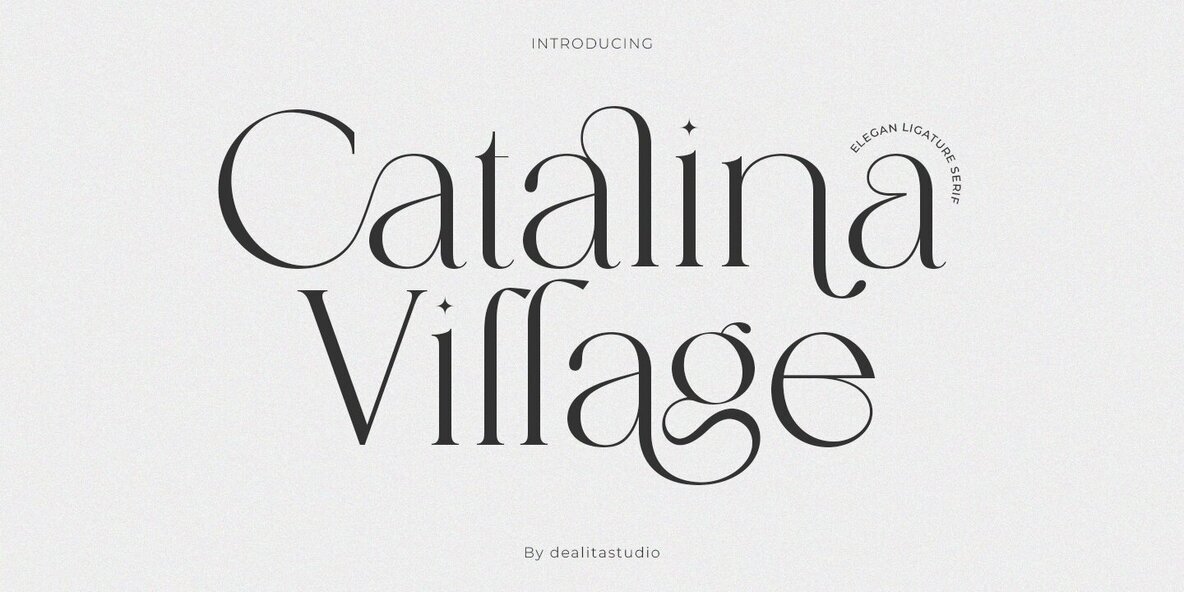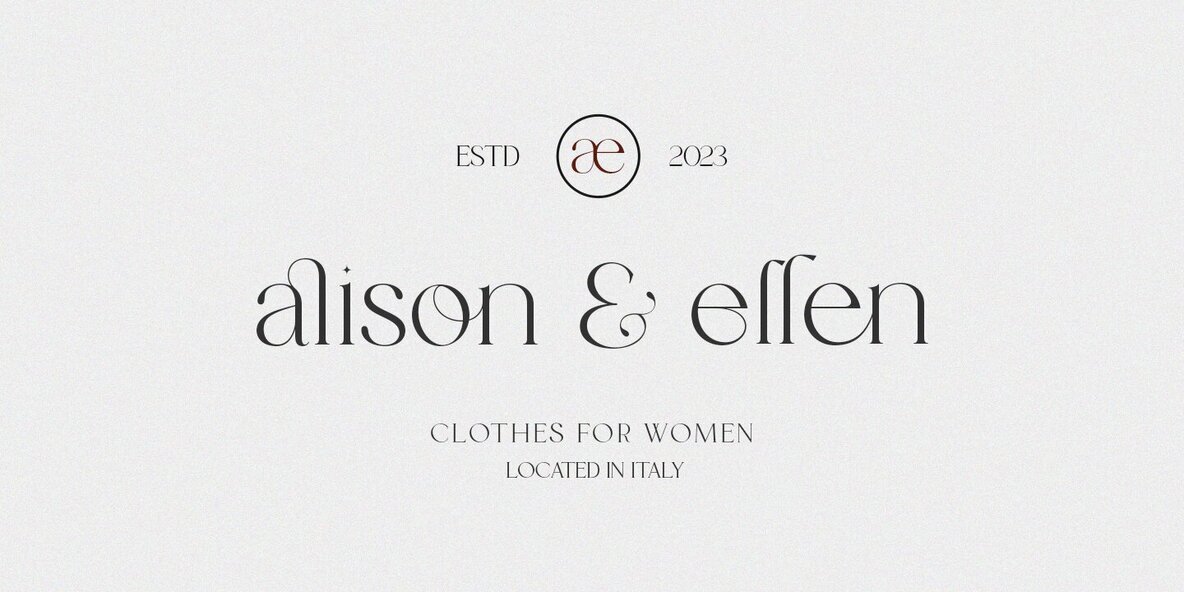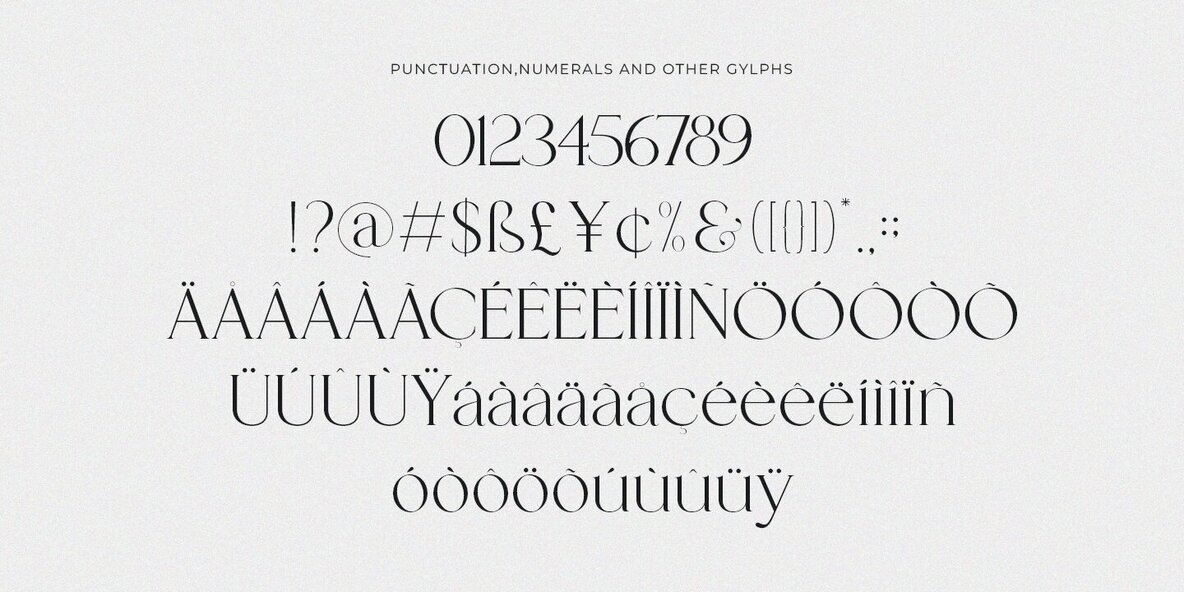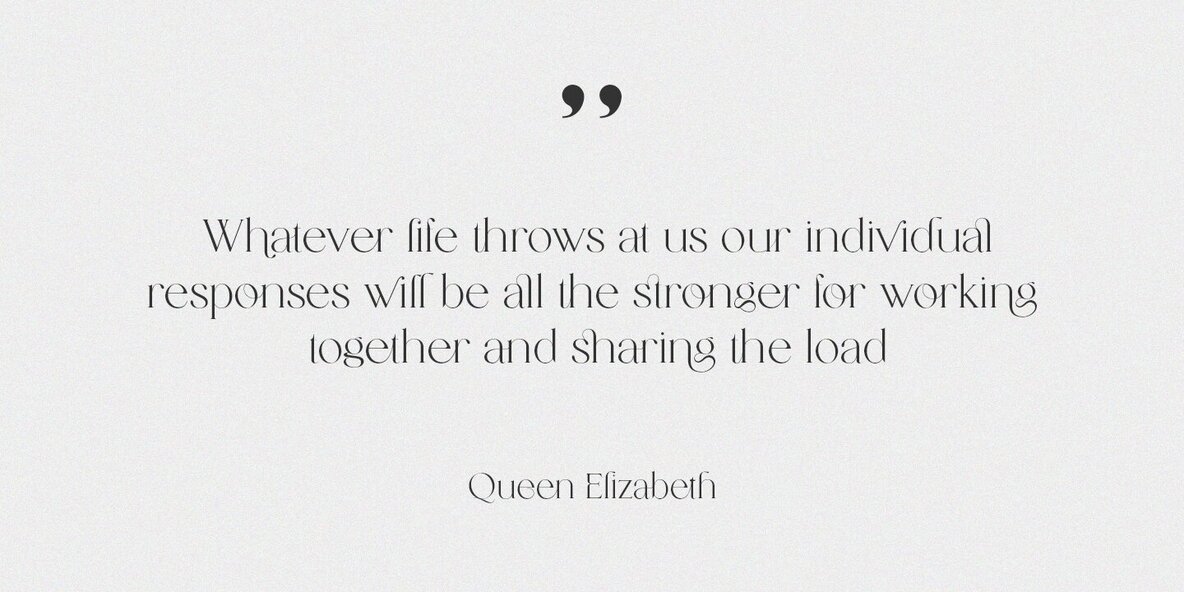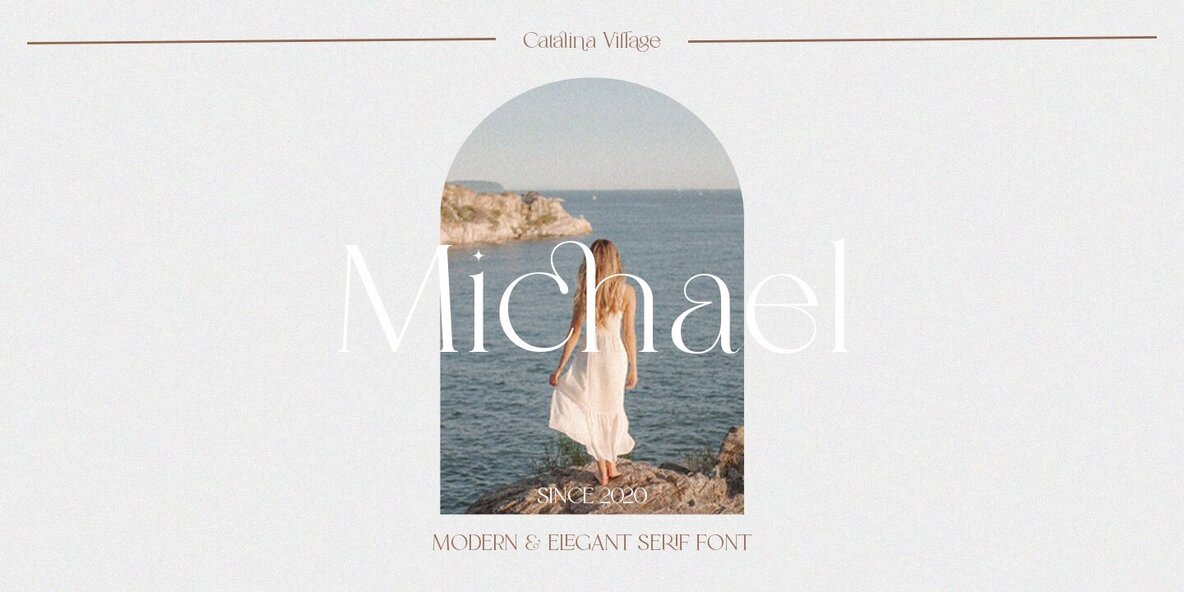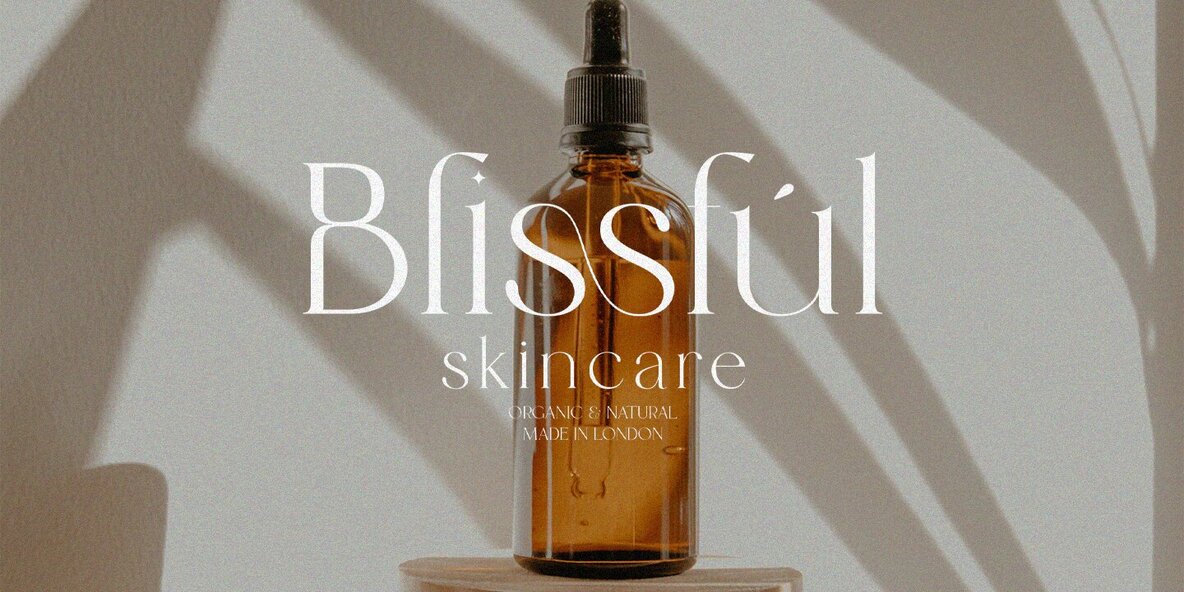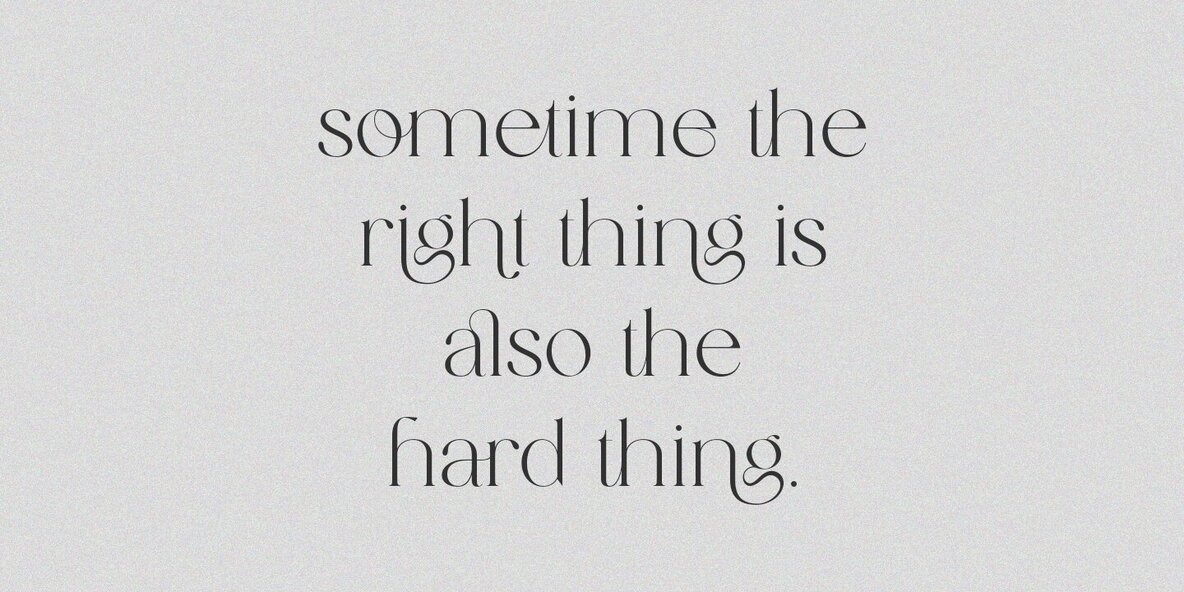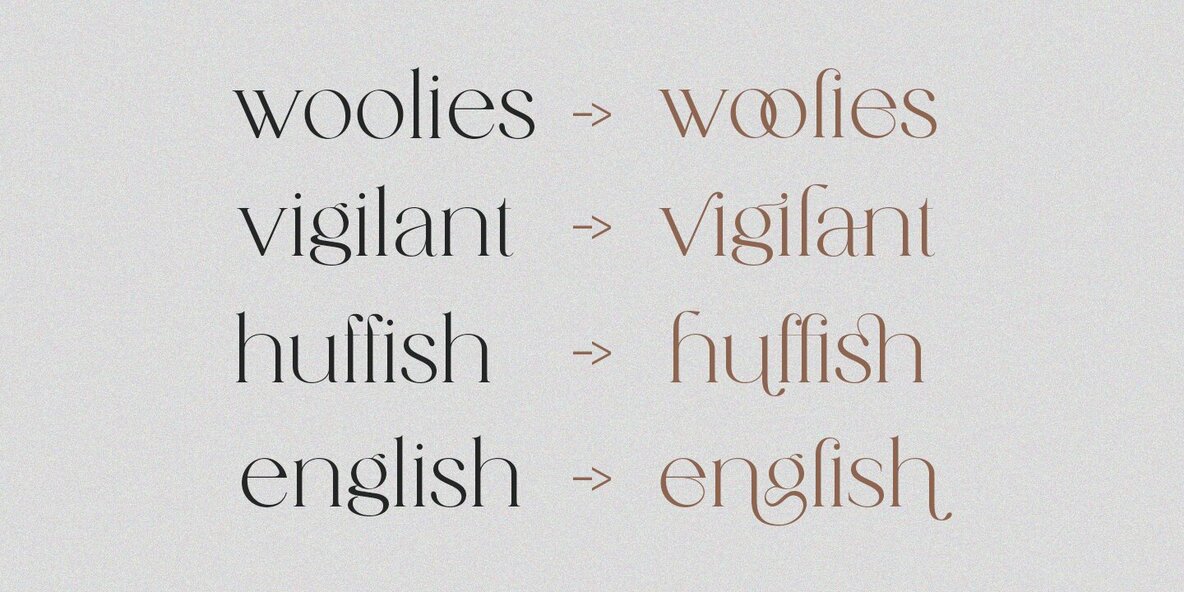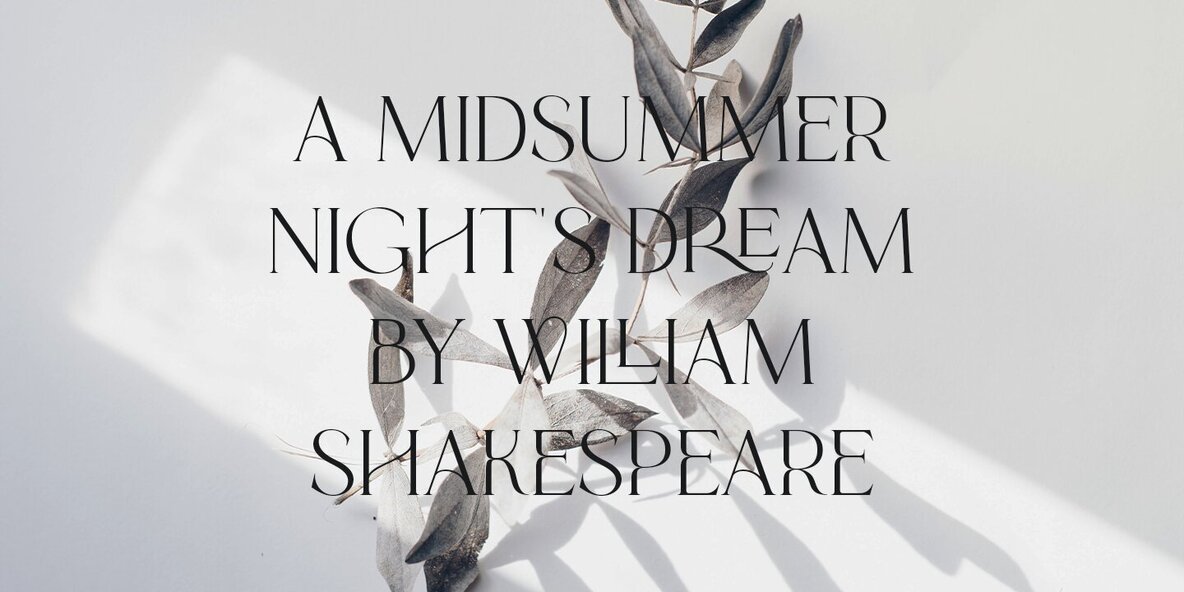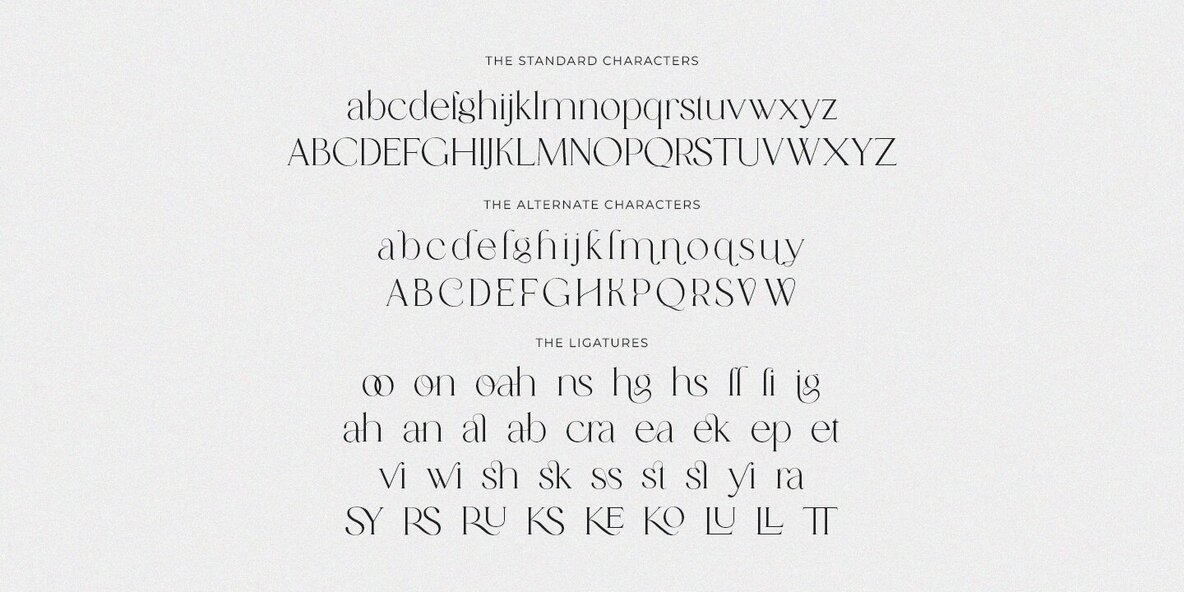
Catalina Village Font
Catalina Village Regular
Catalina is a classy ligature font that brings a unique and stylish flair to any design. Its elegant appearance sets it apart, making it an exceptional choice for projects that demand sophistication. Whether you're working on branding projects, logos, or wedding designs, Catalina adds a touch of elegance and charm.Catalina Village: Timeless Elegance in Typography
Versatility Meets Style